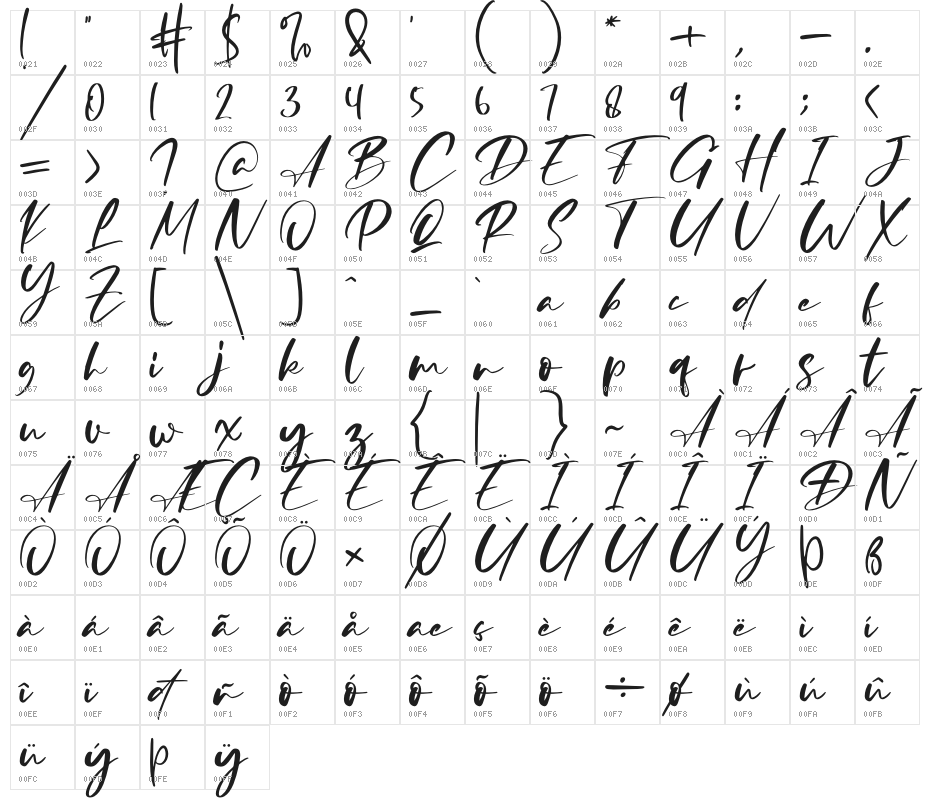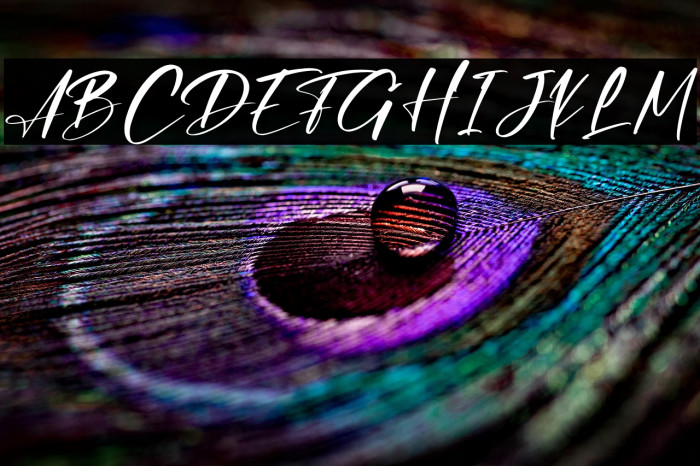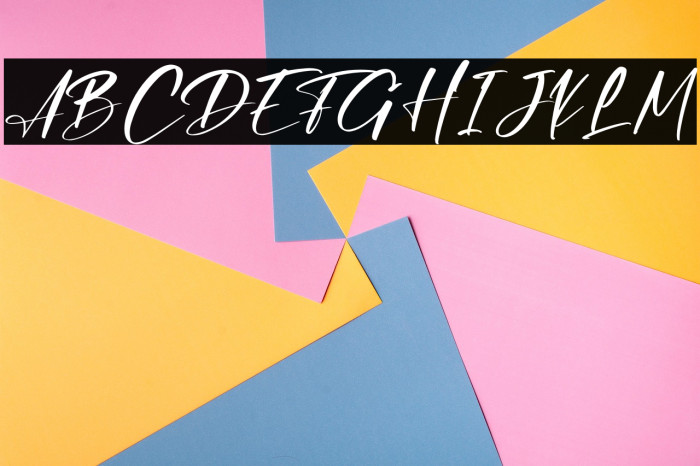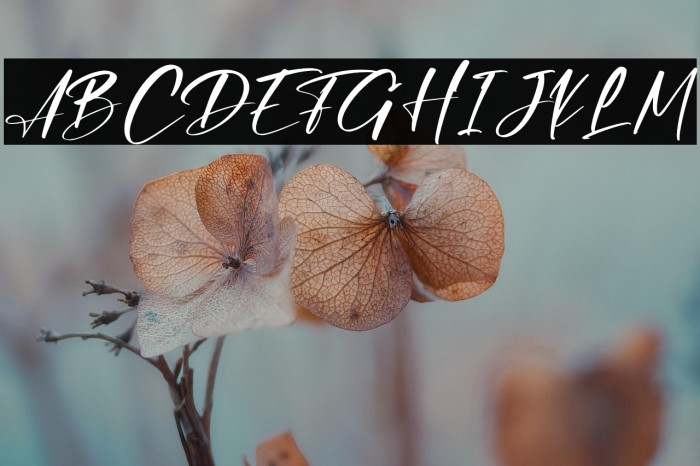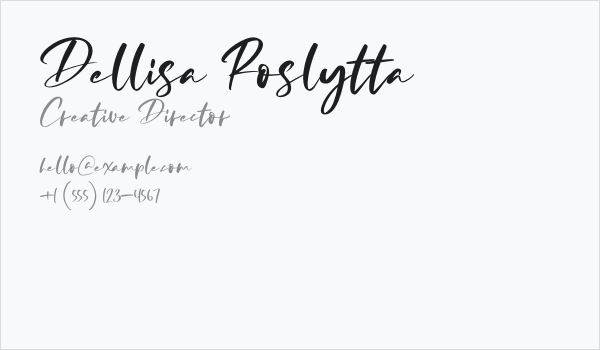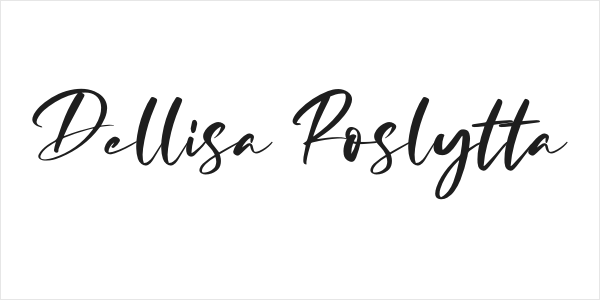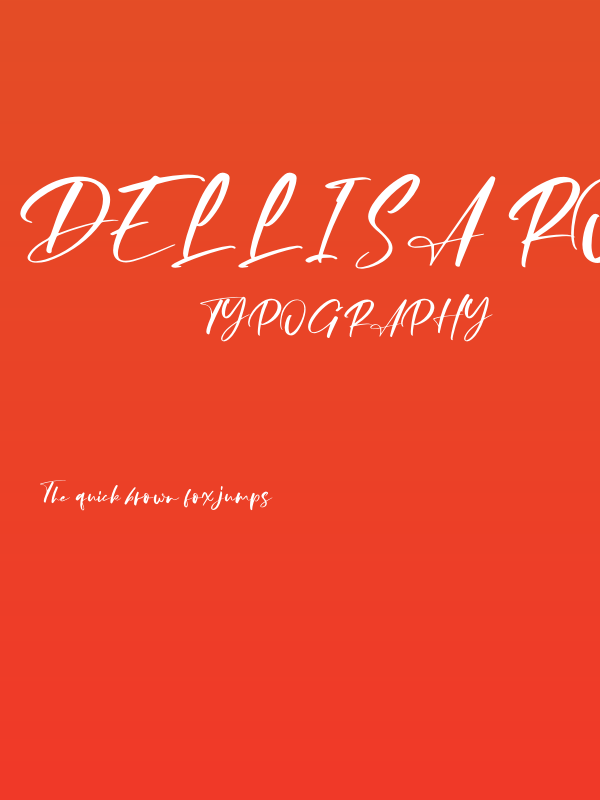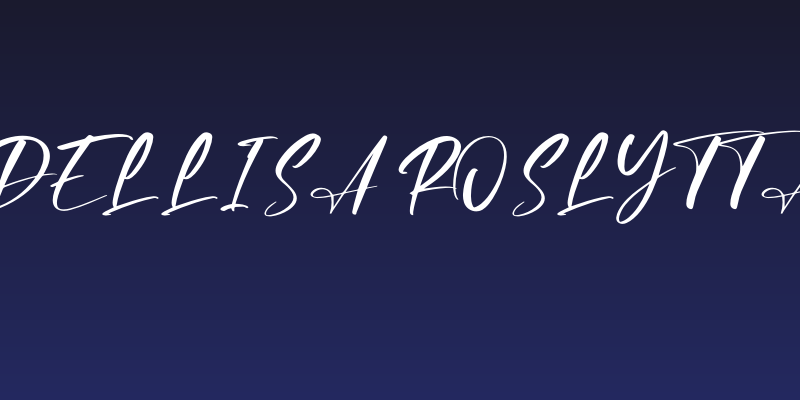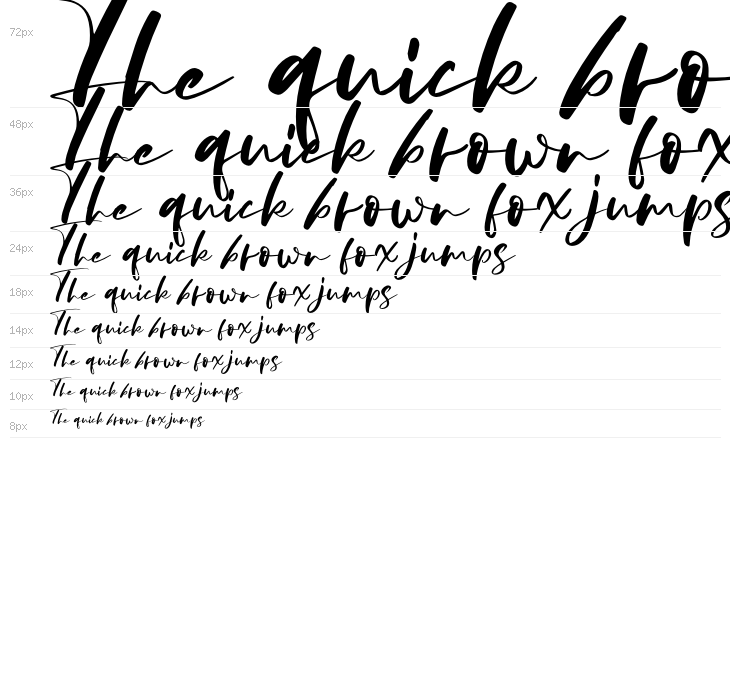
Dellisa Roslytta Font
Dellisa Roslytta Description
This font exudes a dynamic and expressive style, characterized by its fluid, cursive script that mimics the natural flow of handwriting. The uppercase letters are elegantly elongated with a slight slant, while the lowercase letters maintain a consistent rhythm and balance. The numerals and special characters are crafted with the same artistic flair, ensuring a cohesive look across all text. The strokes vary in thickness, providing a medium contrast that enhances readability while maintaining an artistic touch. This font is perfect for projects that require a personal and creative feel.
| Use Case | Logos, Invitations, Creative projects |
| Proposed Projects | Ideal for wedding invitations, greeting cards, branding, and creative projects that require a personal touch. |